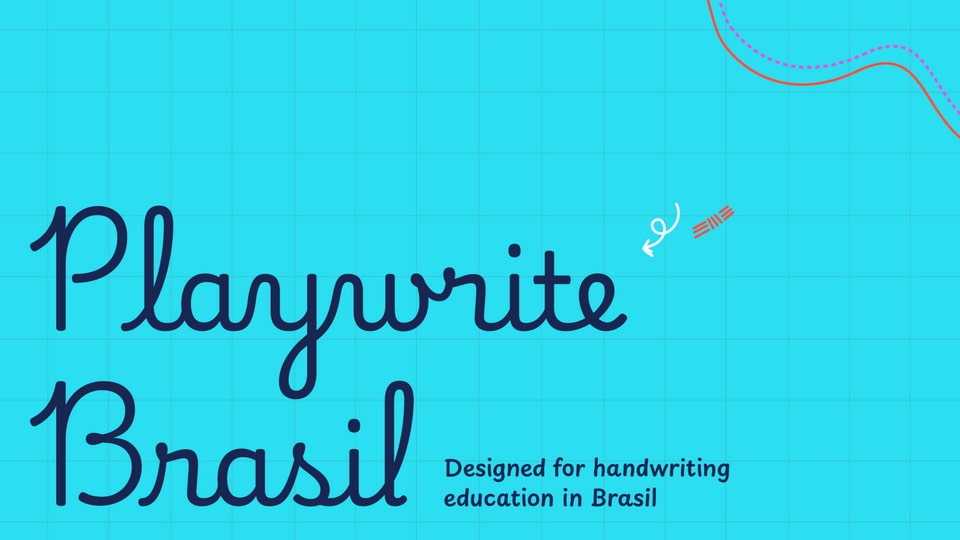
Download Playwrite Brasil font, a typeface engine that allows the creation of primary school cursive fonts. This style features a vertical continuous cursive with medium-length extenders, round letters, and a slow curve speed.
Designer: TypeTogether